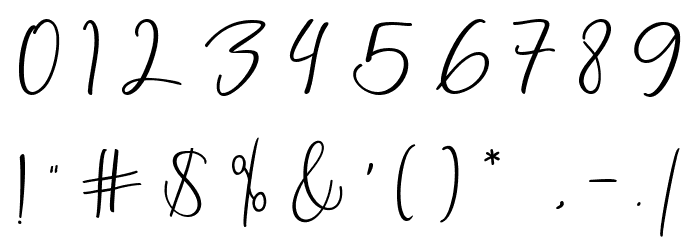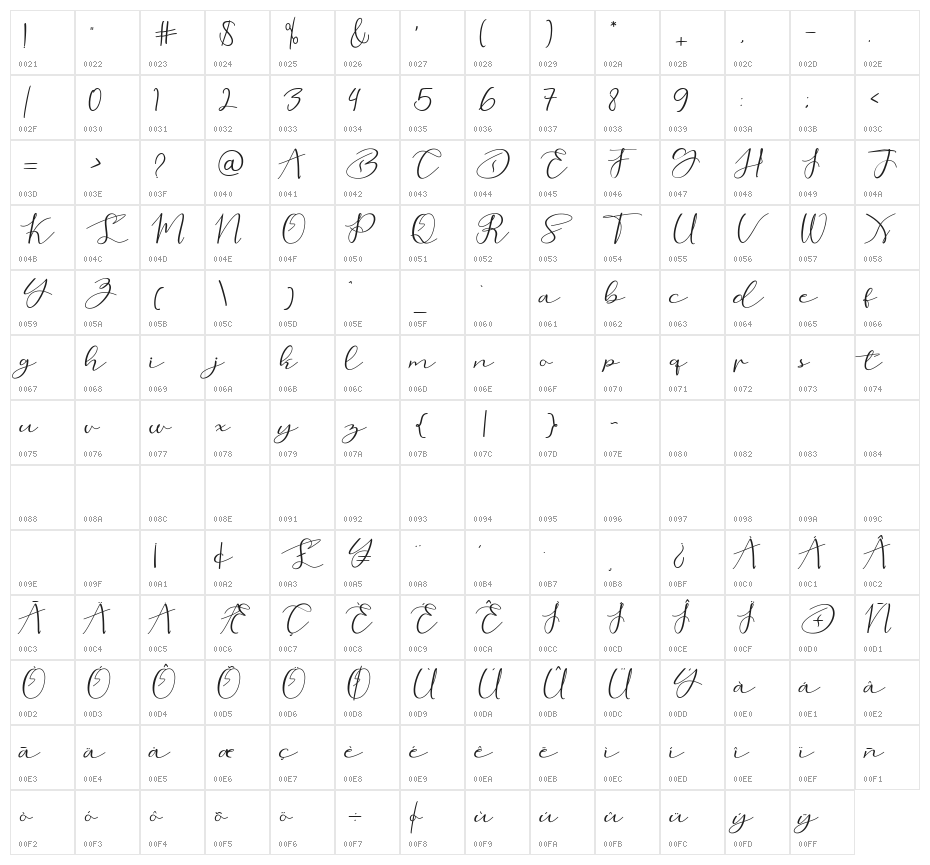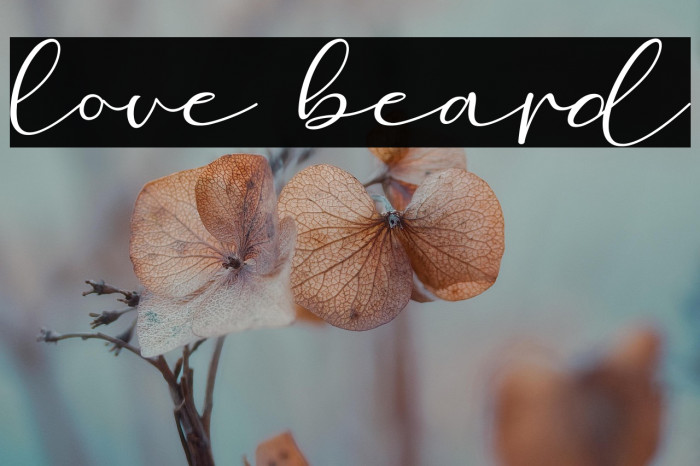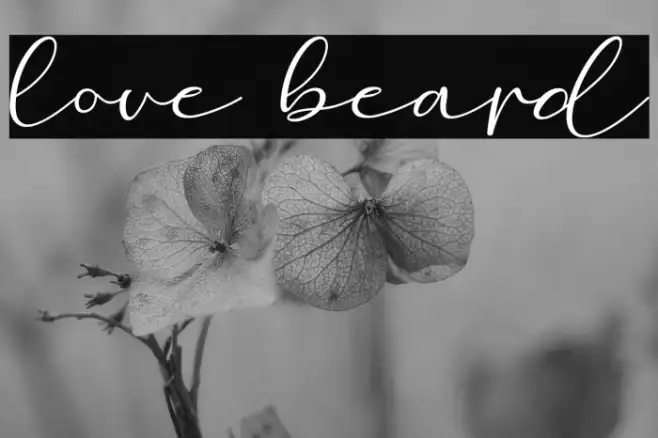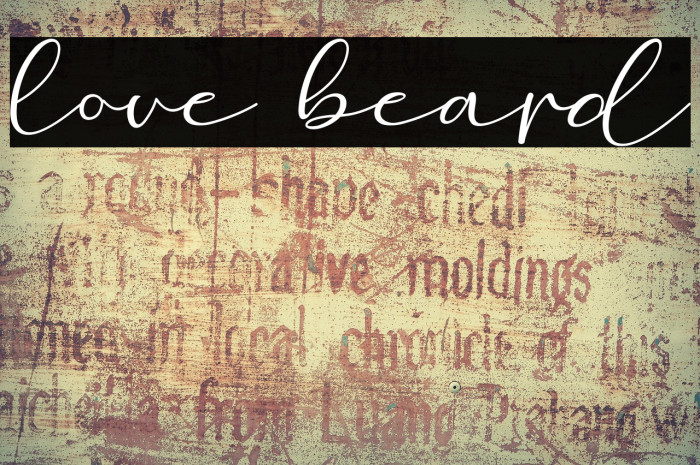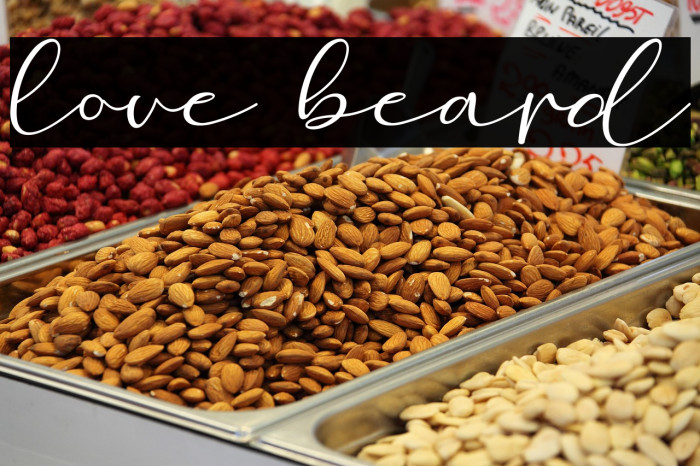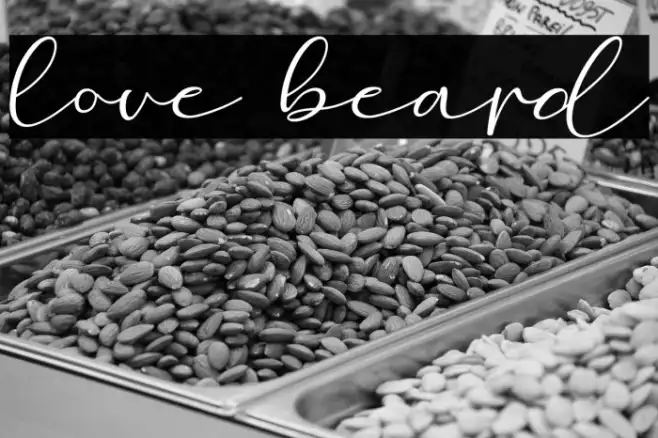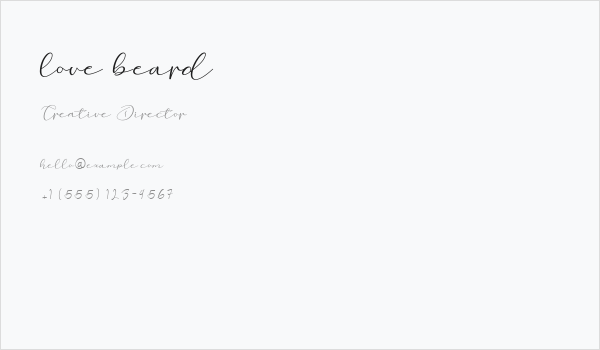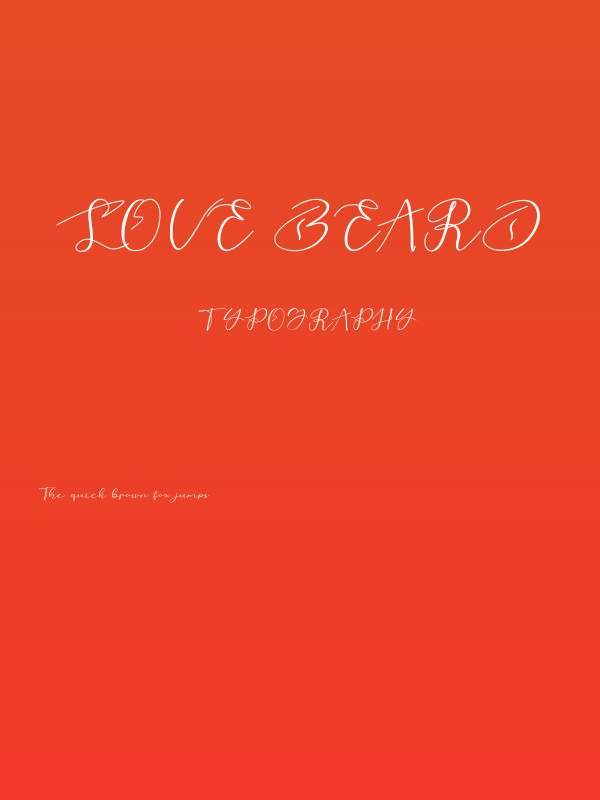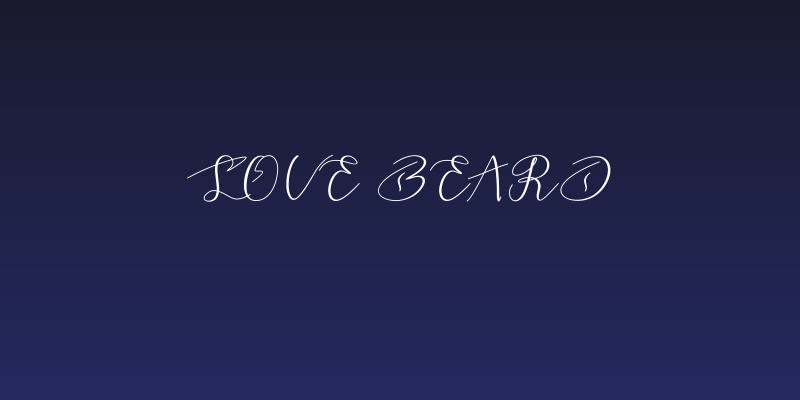
love beard Font
love beard Description
This font embodies a fluid and elegant script style, characterized by its smooth, flowing lines and graceful curves. Each letter connects seamlessly, creating a harmonious and continuous script that mimics natural handwriting. The uppercase letters are slightly more ornate, with subtle flourishes that add a touch of sophistication. The lowercase letters maintain a consistent rhythm, enhancing readability while retaining an artistic flair. The numerals and special characters are crafted with the same attention to detail, ensuring a cohesive look across all elements. This font is ideal for projects that require a personal touch, such as invitations, greeting cards, and branding materials.
| Use Case | Headlines, Invitations, Personal Branding |
| Proposed Projects | Perfect for wedding invitations, personal branding, greeting cards, and elegant stationery. |